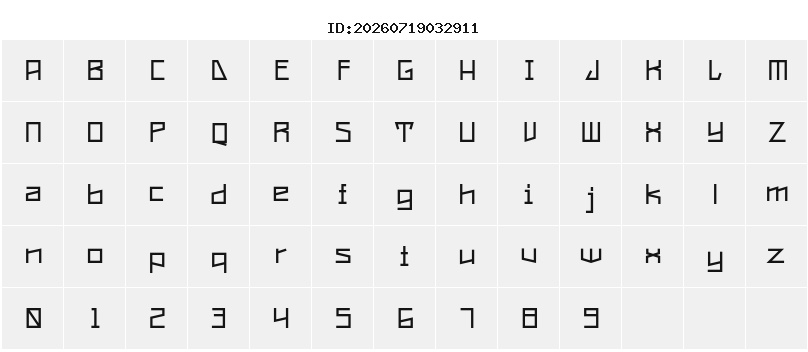
• Font Name: Constructa
• Full Font Name: Constructa-Regular
• PostScript Name: Constructa-Regular
• Designer: Nicolas gafner
• Manufacturer: Nicolas Gafner
About Constructa.otf
Constructa.otf is a modern, elegant sans-serif font designed for ultimate readability and visual harmony. Perfect for branding, headlines, web design, and print materials.